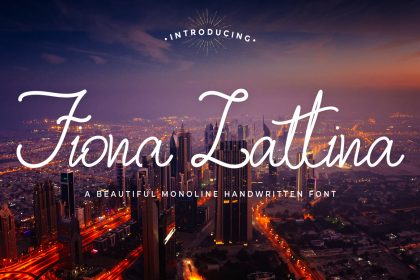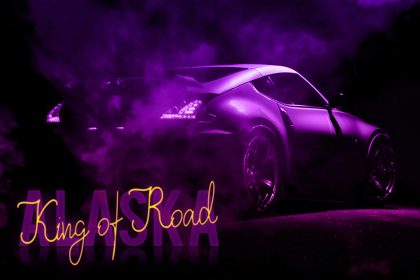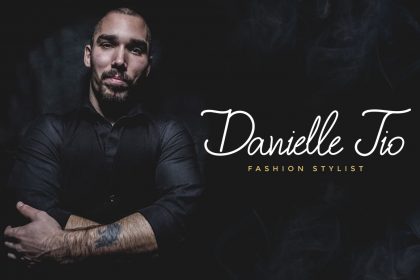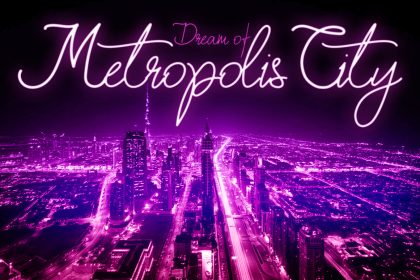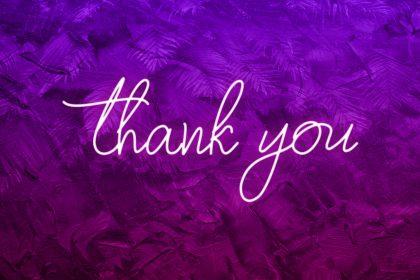
Fiona Lattina Handwritten Font
Introducing Fiona Lattina, a beautiful and stylish handwritten font. This beautiful script font offers your personal touch to your latest art project with elegant, classy and modern look.
Fiona Lattina offers gorgeous typographic will perfect for many different projects such as logos & branding, invitation, stationery, wedding designs, social media posts, advertisements, product packaging, product designs, label, photography, watermark, special events or anything that need handwriting taste.